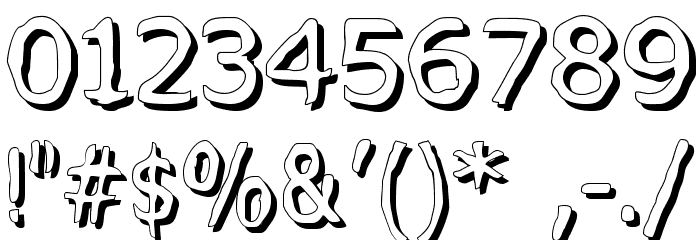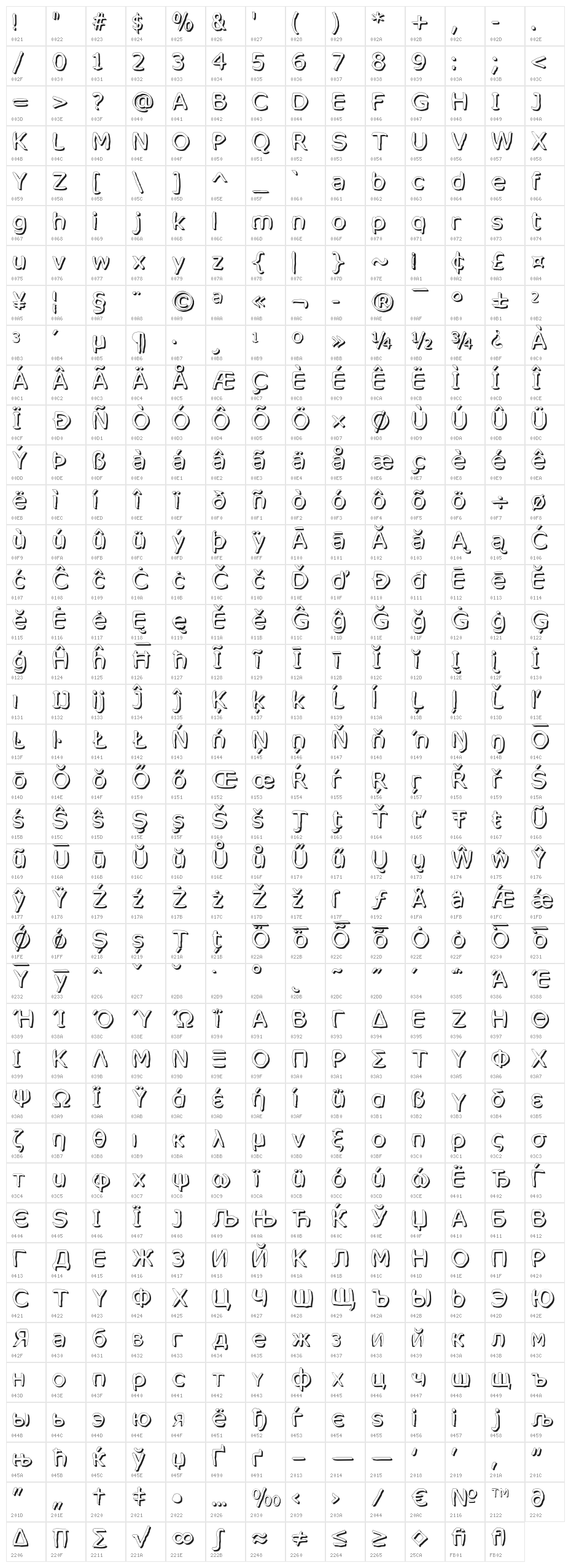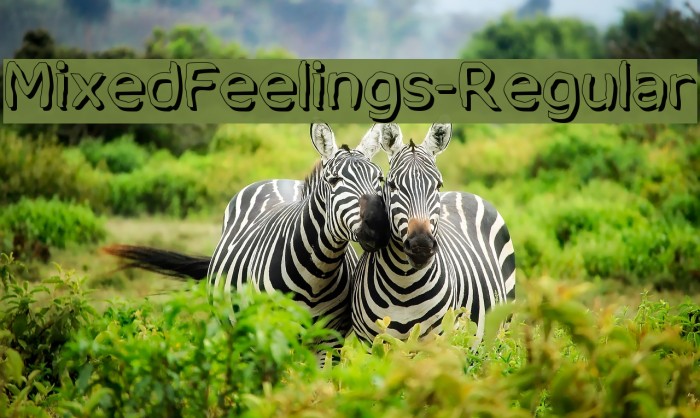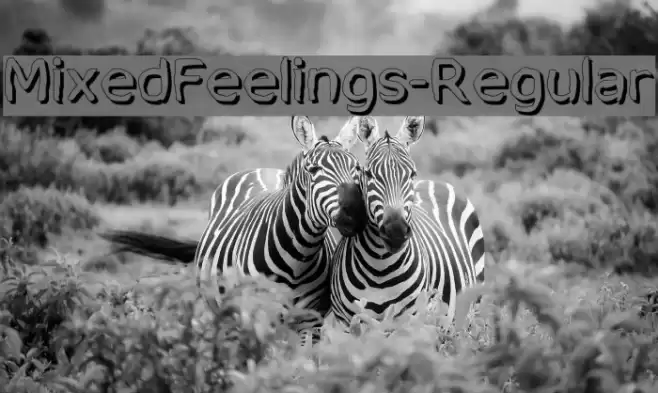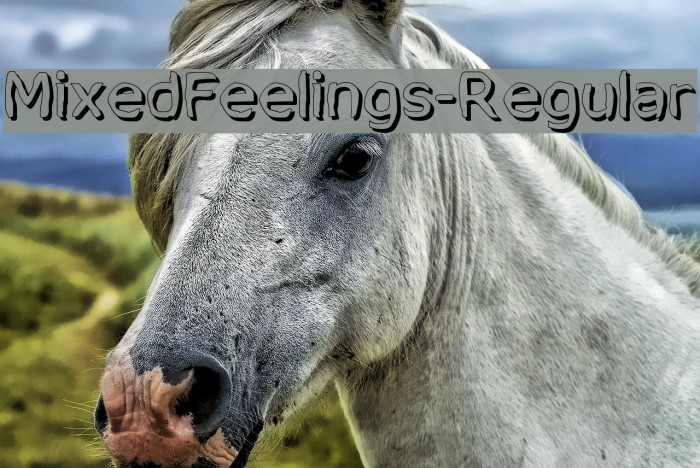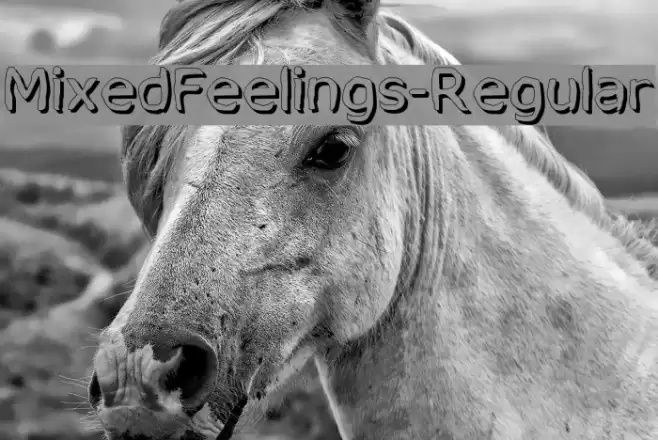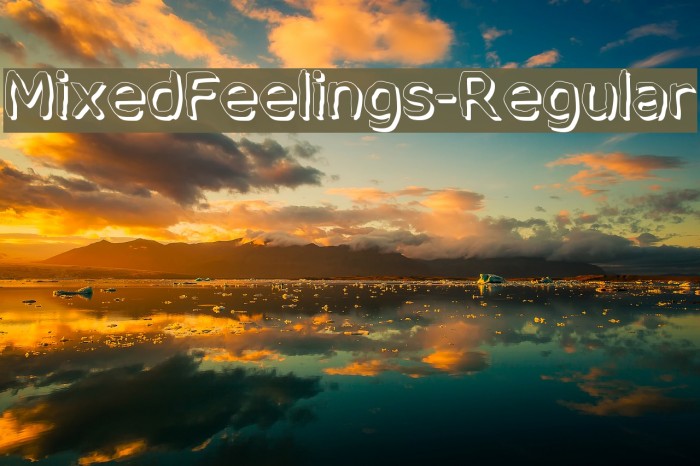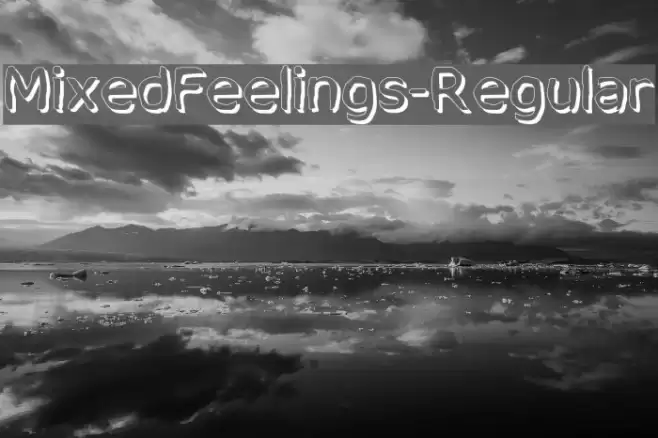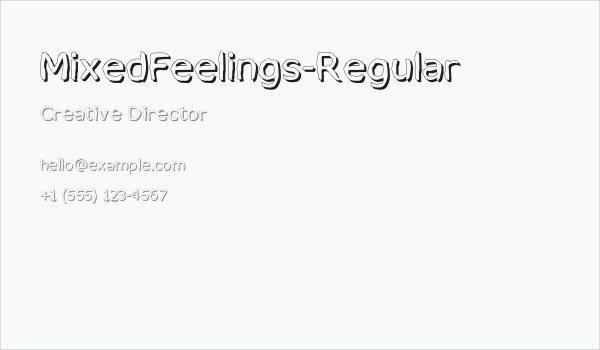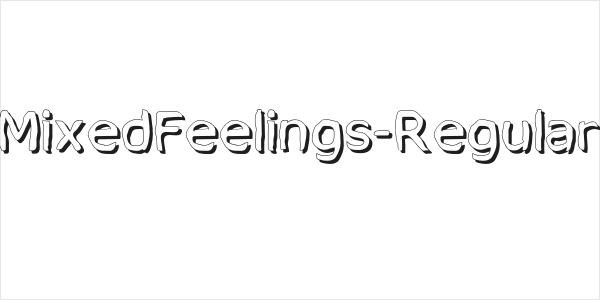
MixedFeelings-Regular Font
MixedFeelings-Regular Description
This font features a playful and bold design with a hand-drawn aesthetic. Each character is outlined, giving it a three-dimensional effect that adds depth and visual interest. The strokes are thick and consistent, creating a strong presence on the page. The overall look is casual and approachable, making it suitable for projects that require a friendly and informal tone. The characters are well-spaced, ensuring readability while maintaining a unique style. This font is ideal for creative projects where a touch of whimsy is desired.
| Overall Style | Playful, Casual |
| Proposed Projects | Ideal for children's books, playful branding, posters, and creative invitations. |